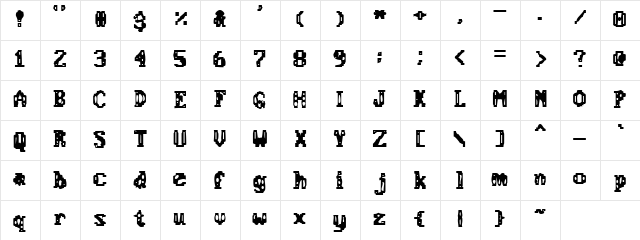
Chemical Gus Normal
Design Context for Chemical Gus Typeface
Chemical Gus is a composed and adaptable typeface that performs quietly and consistently across a wide range of design contexts.